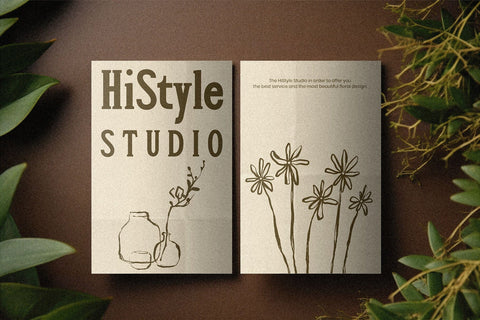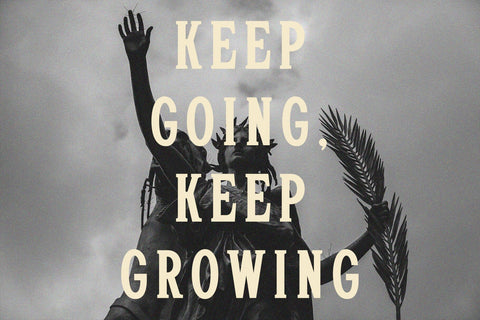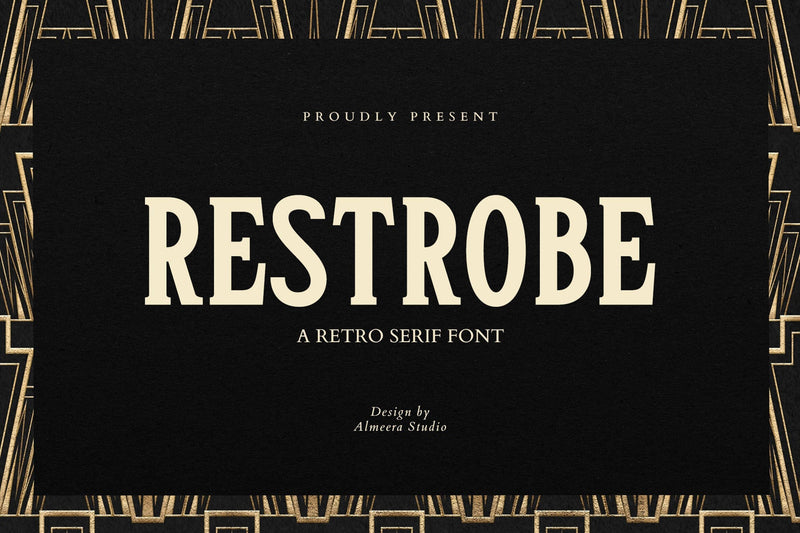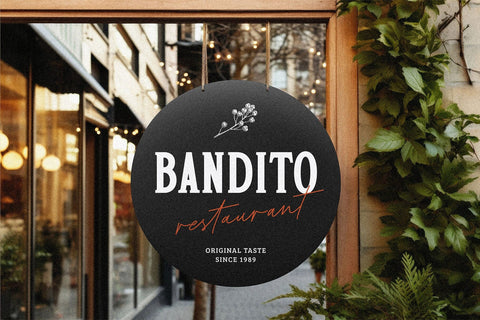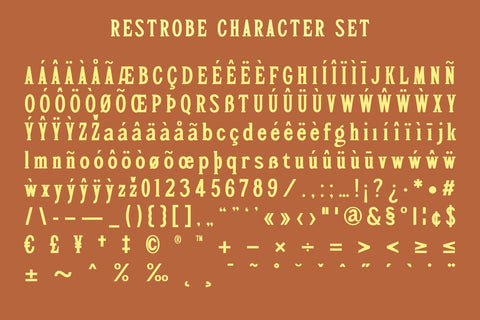
Restrobe - Retro Serif Font
Introducing Restrobe - Serif Font. Restrobe is a simple vintage serif font, This type of font is very suitable for your various needs such as branding projects, logos, social media posts, advertisements, labels, product packaging, photography, wedding designs, watermarks, invitation product designs, stationery, and any project.